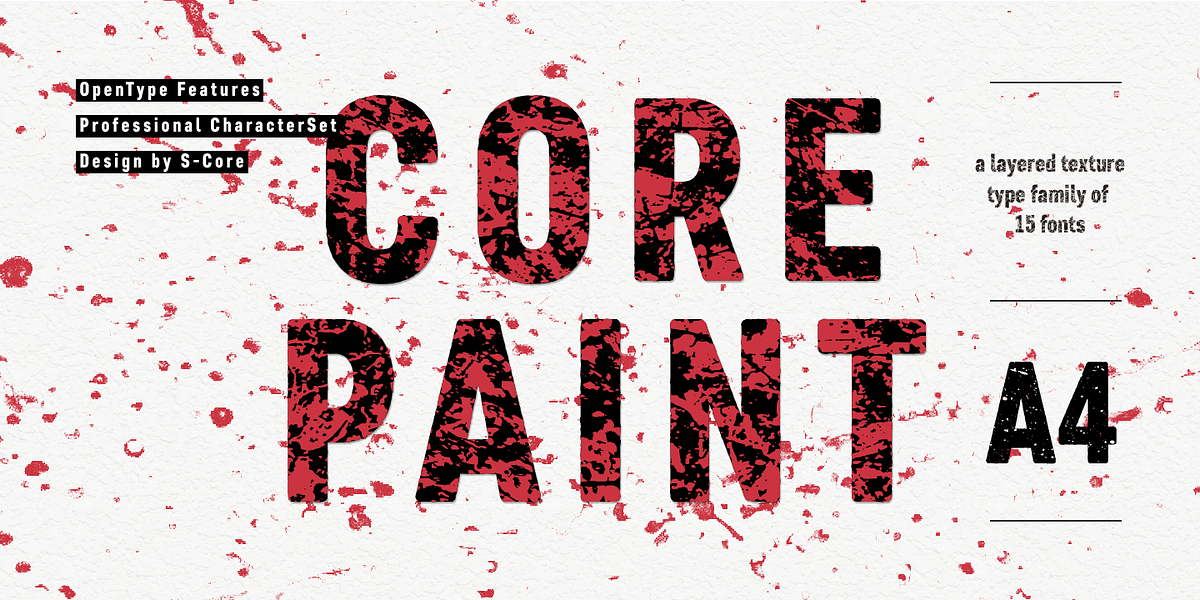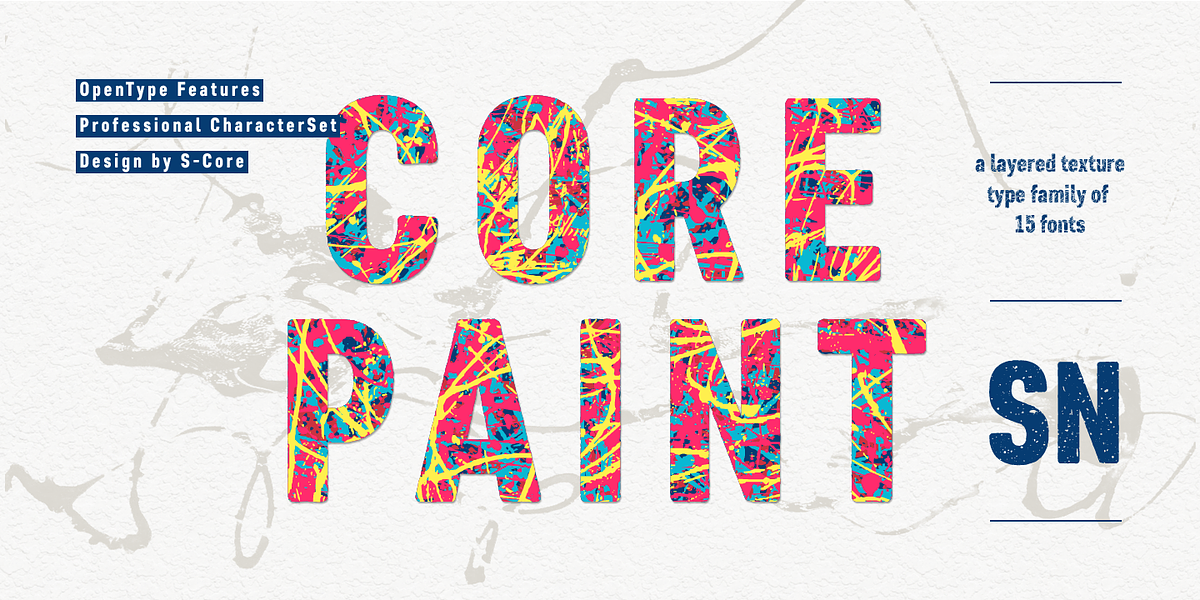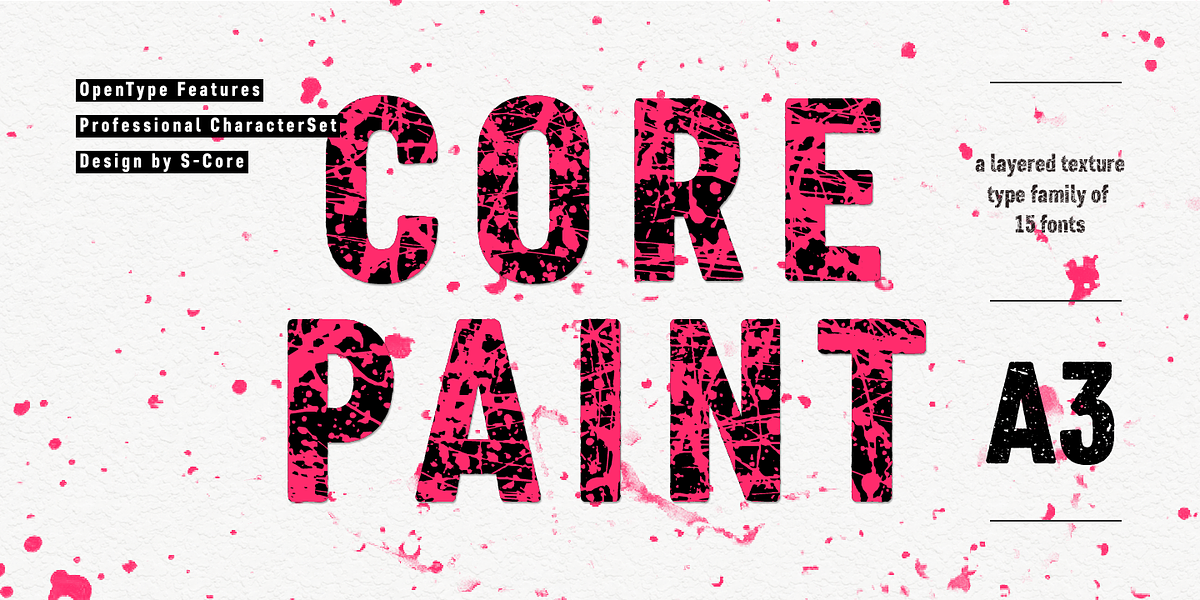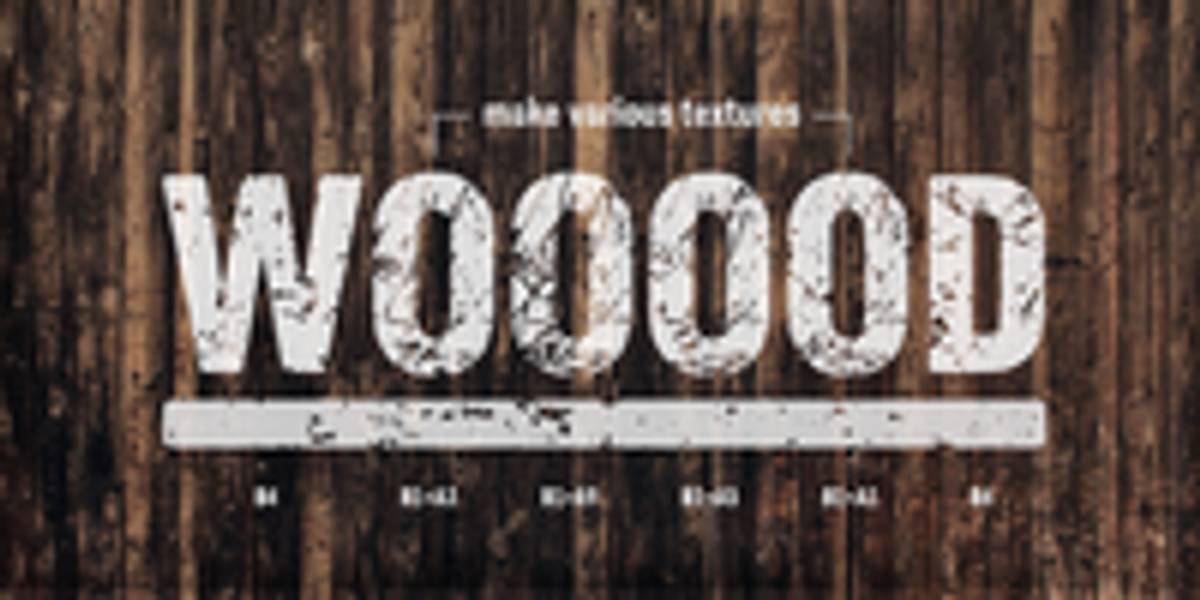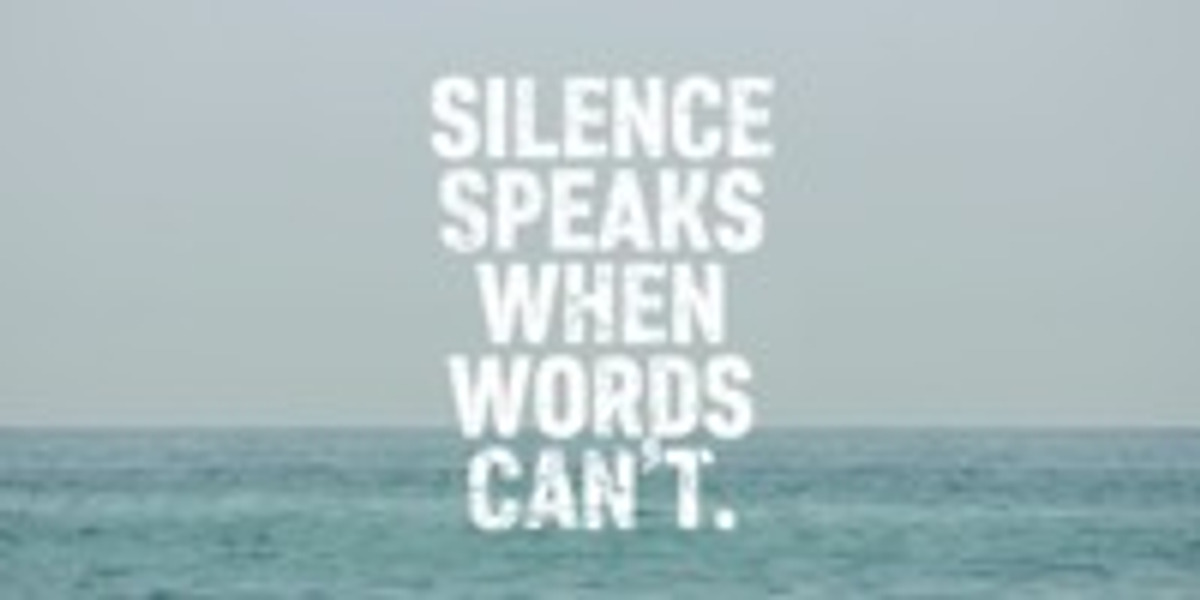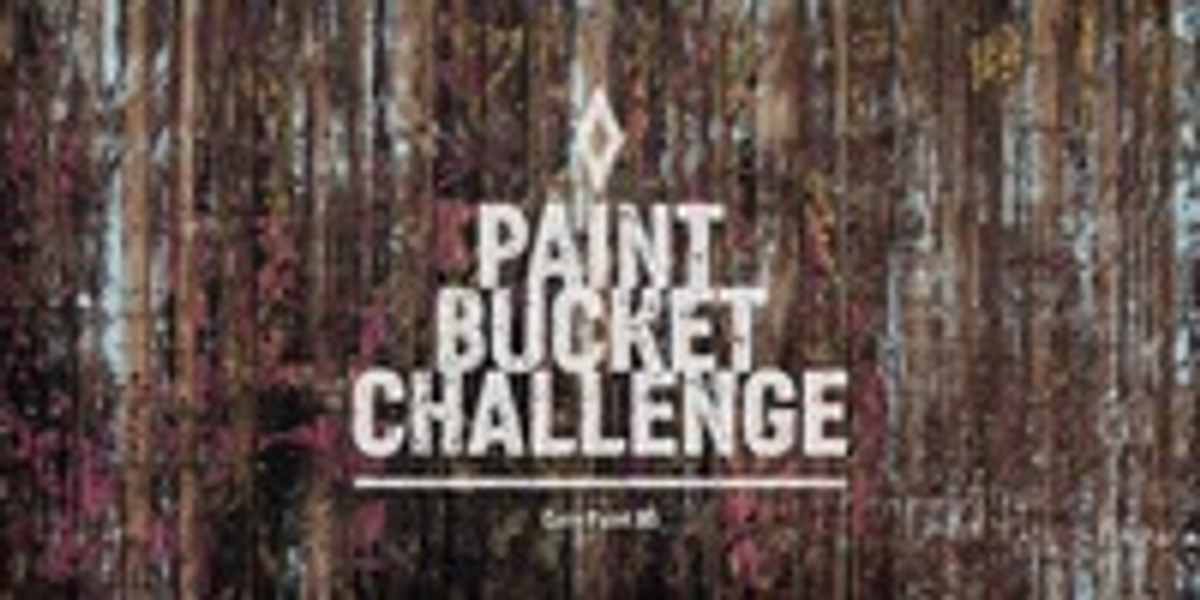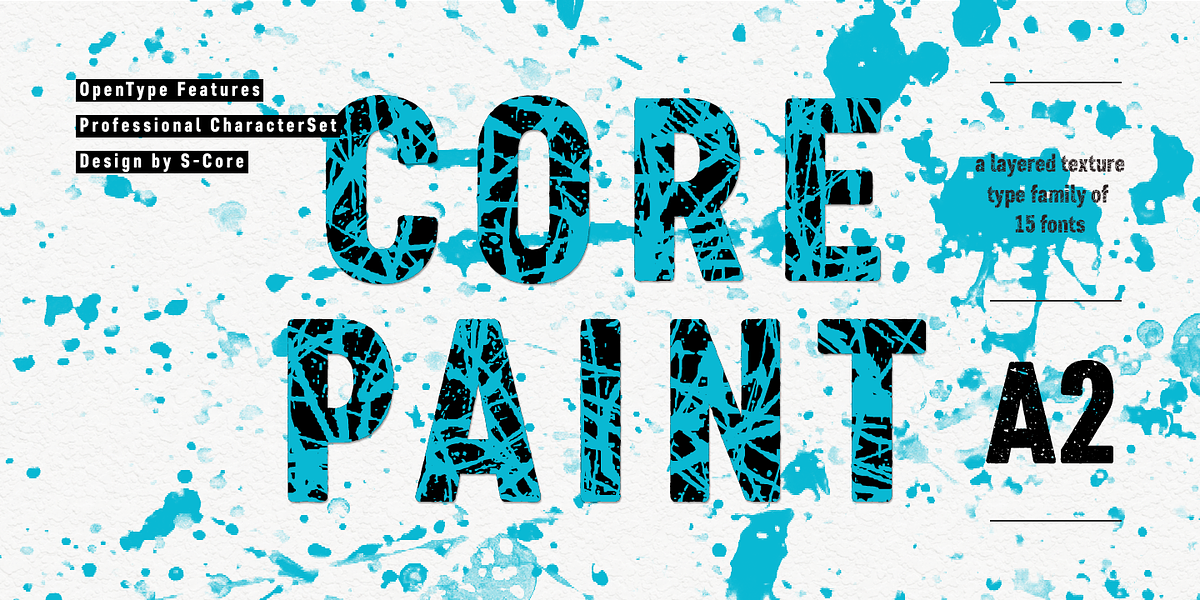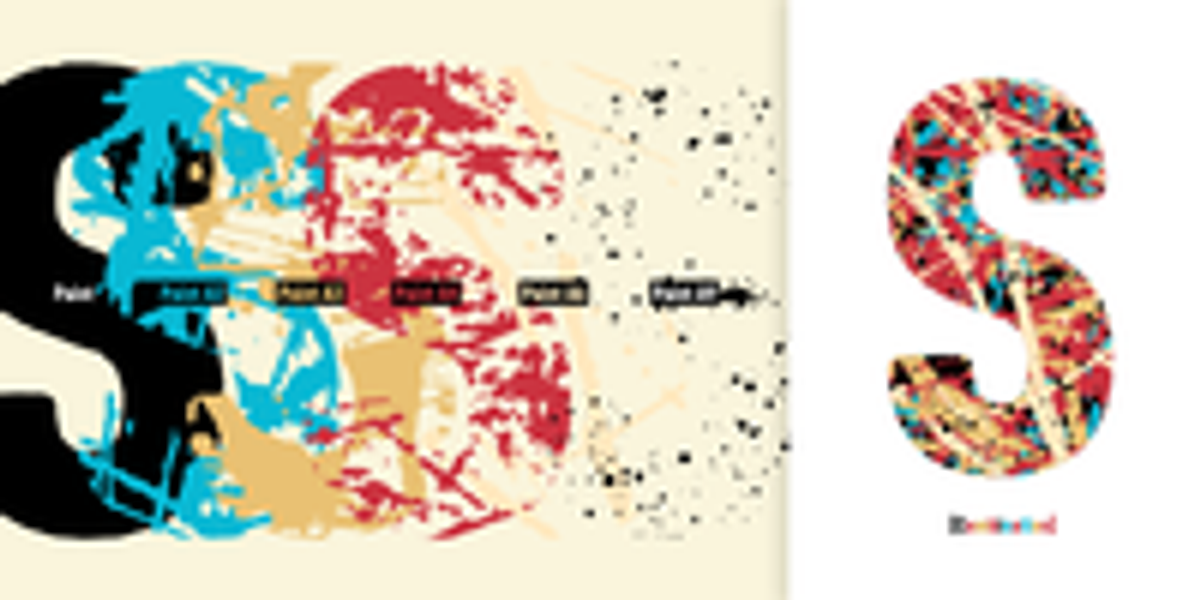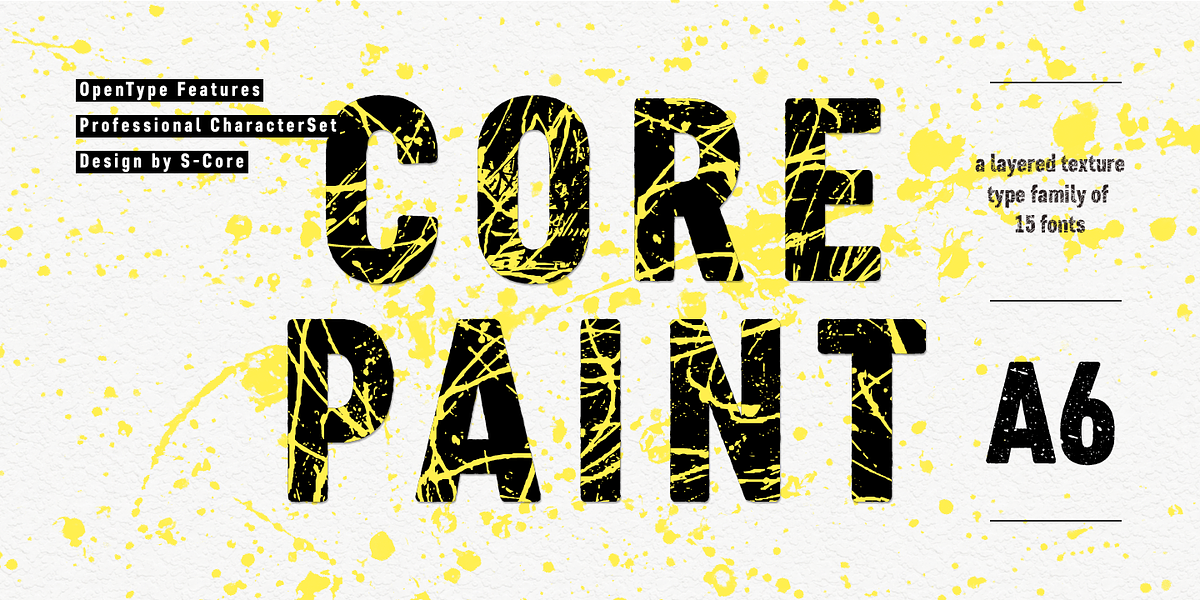
Core Paint
The Core Paint font family draws inspiration from the action painting style of Jackson Pollock. It features two sub-families, A and B, designed to be layered for creating a variety of textured effects. By adding color variations, users can further enhance the complexity and uniqueness of their typography. The font supports a comprehensive set of characters, including Basic Latin, Cyrillic, Central European, Turkish, Baltic, and various typographic features such as figures, fractions, and subscripts.